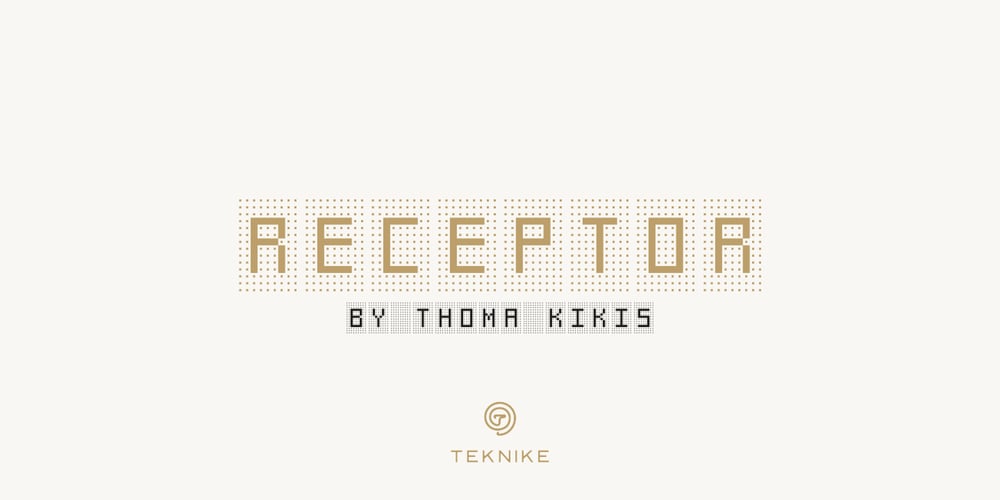
Receptor Font Family was designed by Thoma Kikis and published by TEKNIKE. Receptor contains 24 styles and family package options. Receptor is a geometric monospace display font. The typeface is made from single basic square geometric units grouped together to form a whole. The name is derived from the word ‘recept’ meaning an idea formed by the repetition of similar or successive percepts of the same object; in science a receptor is a chemical structure that receives and converts signals. Receptor is great for display work, logos, structures, architecture, technology, biology, sports, monograms, quotes, headings and posters.